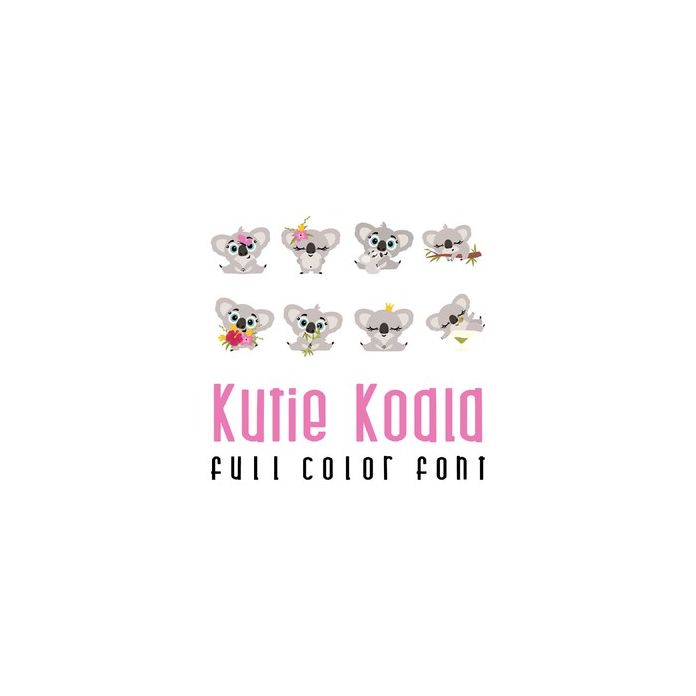
This adorable full color doodlebat font features adorable koala bears. Perfect for cards, crafts, gifts, decor, scrap book pages, planner stickers and more!